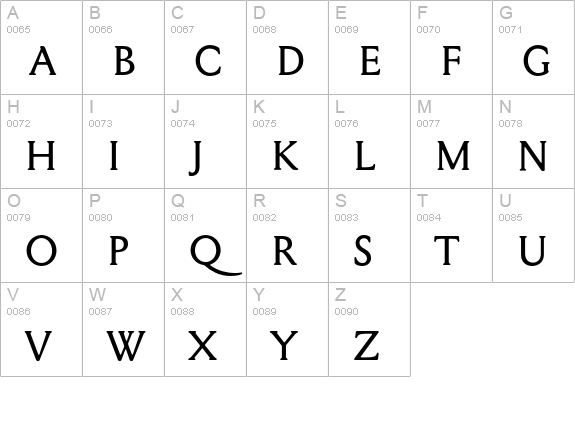
Mediaeval-Regular is the standard, neutral variant in the Mediaeval typeface family \xE2\x80\x94 well suited to general body text, paragraphs, and standard typographic work.
The Mediaeval-Regular font is a stunning typeface that brings to mind the elegance and grandeur of the medieval era. Its intricate details and classic design make it perfect for adding a touch of sophistication to your projects. With its timeless appeal, this font is versatile and can be used for a wide range of applications, from invitations to branding and beyond. Best of all, Mediaeval-Regular font is completely free to download at FontsMarket.com. So whether you're a designer looking to add a unique flair to your work or a hobbyist seeking to elevate your creations, this font is a must-have in your collection. Don't miss out on the opportunity to enhance your designs with the exquisite beauty of Mediaeval-Regular font – download it today and let your creativity shine!